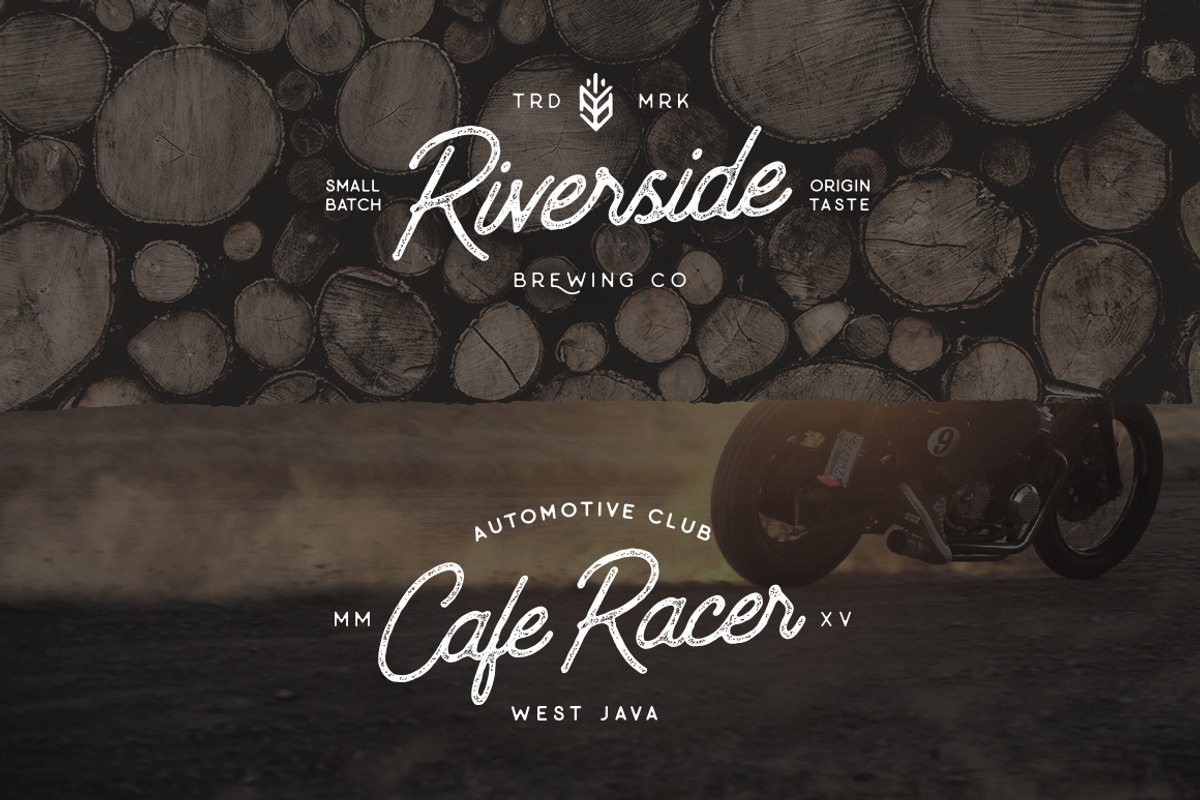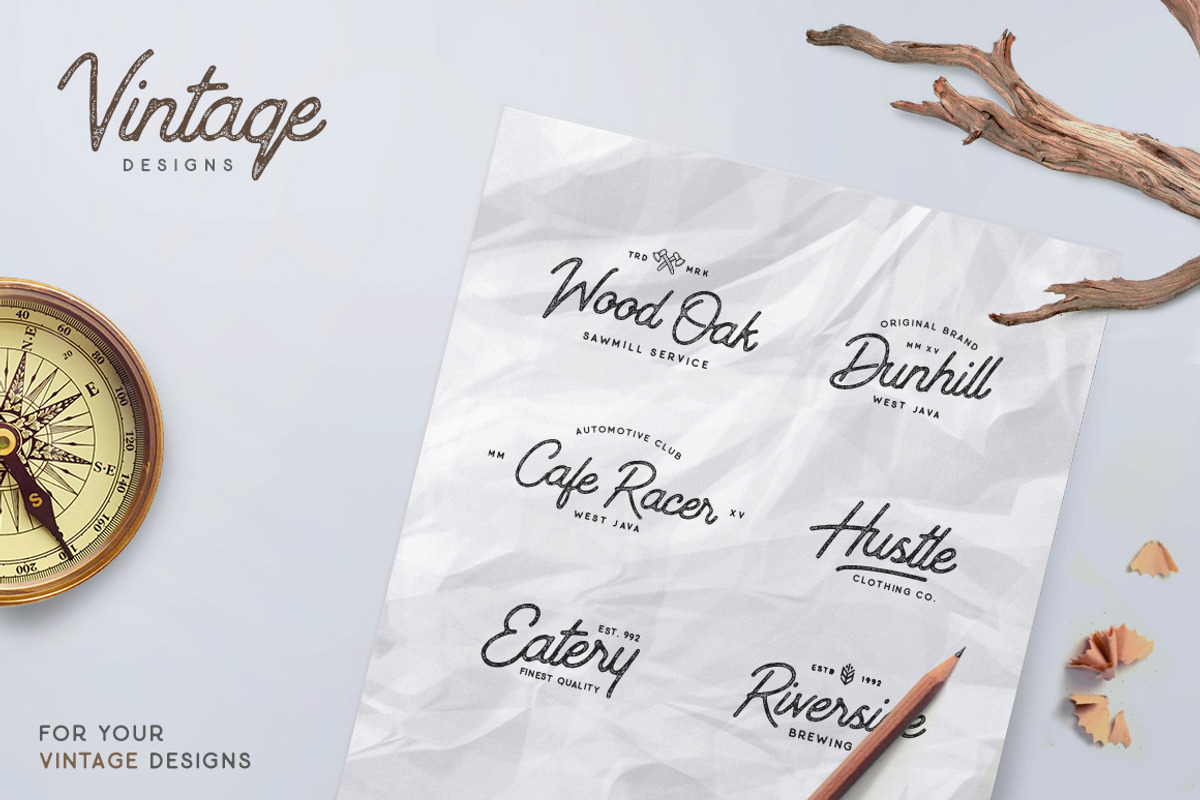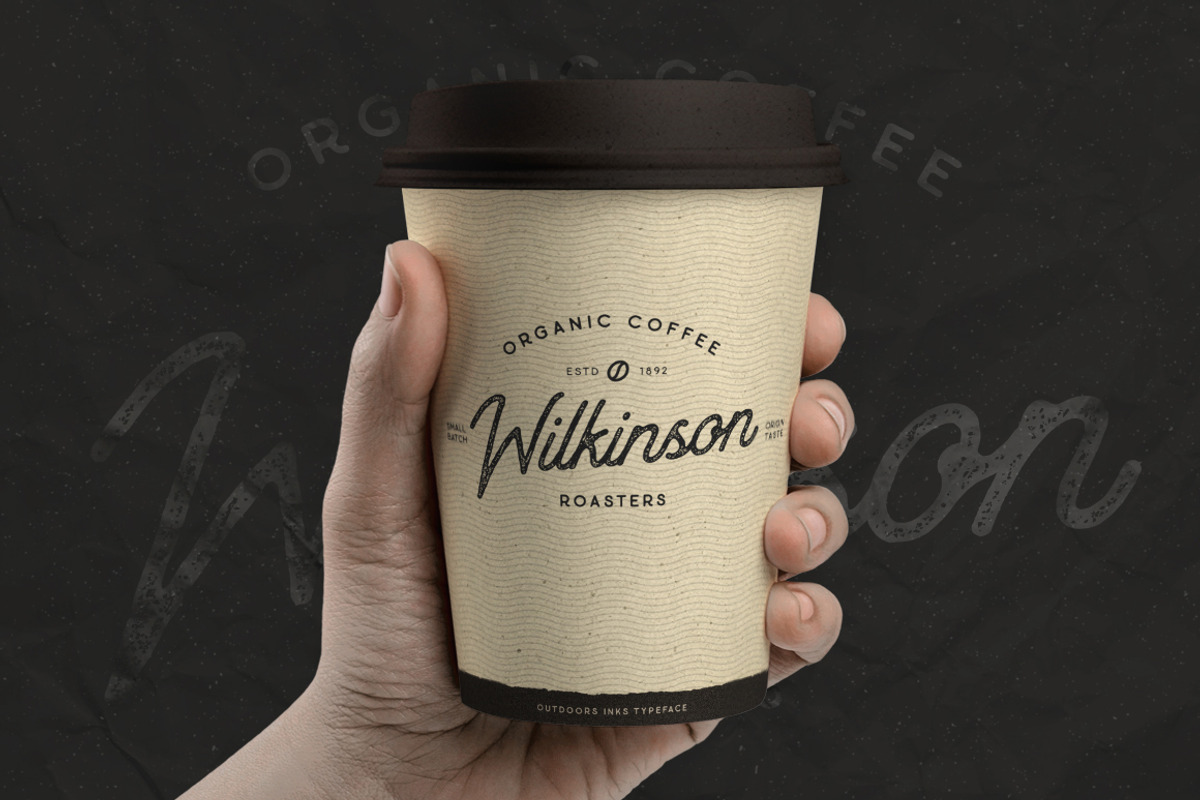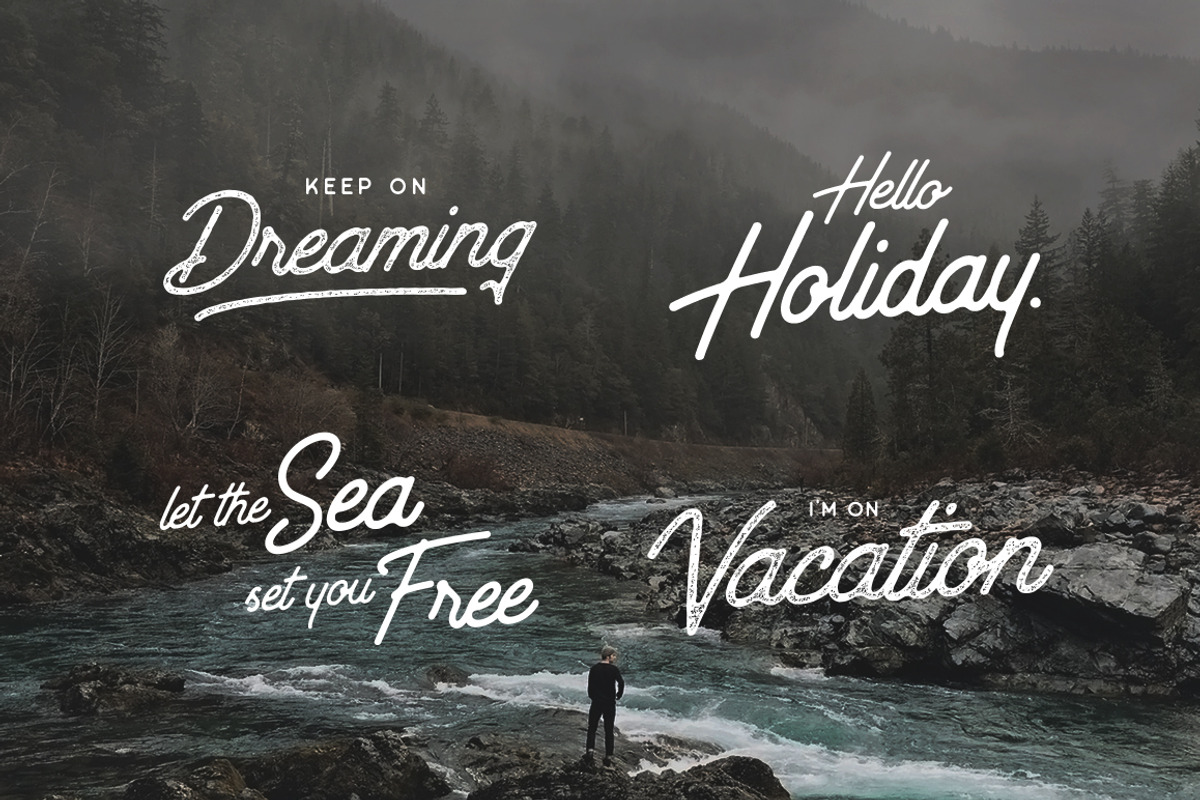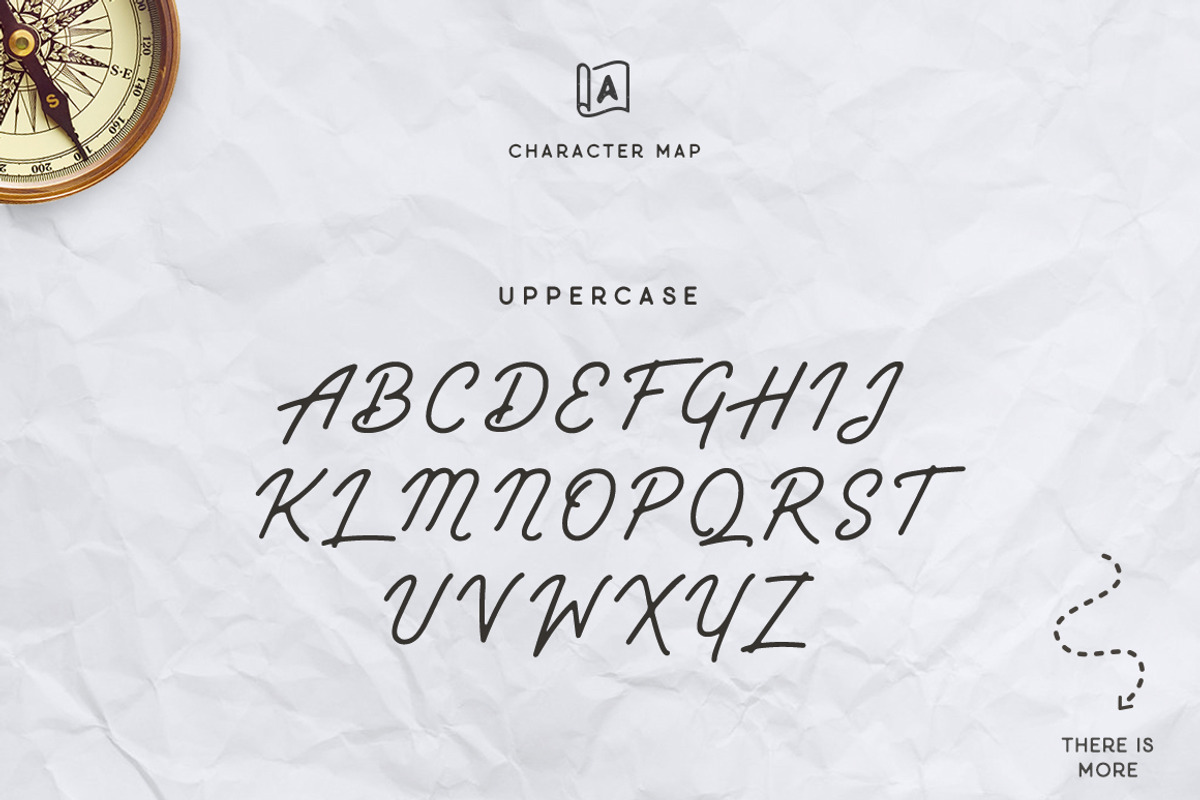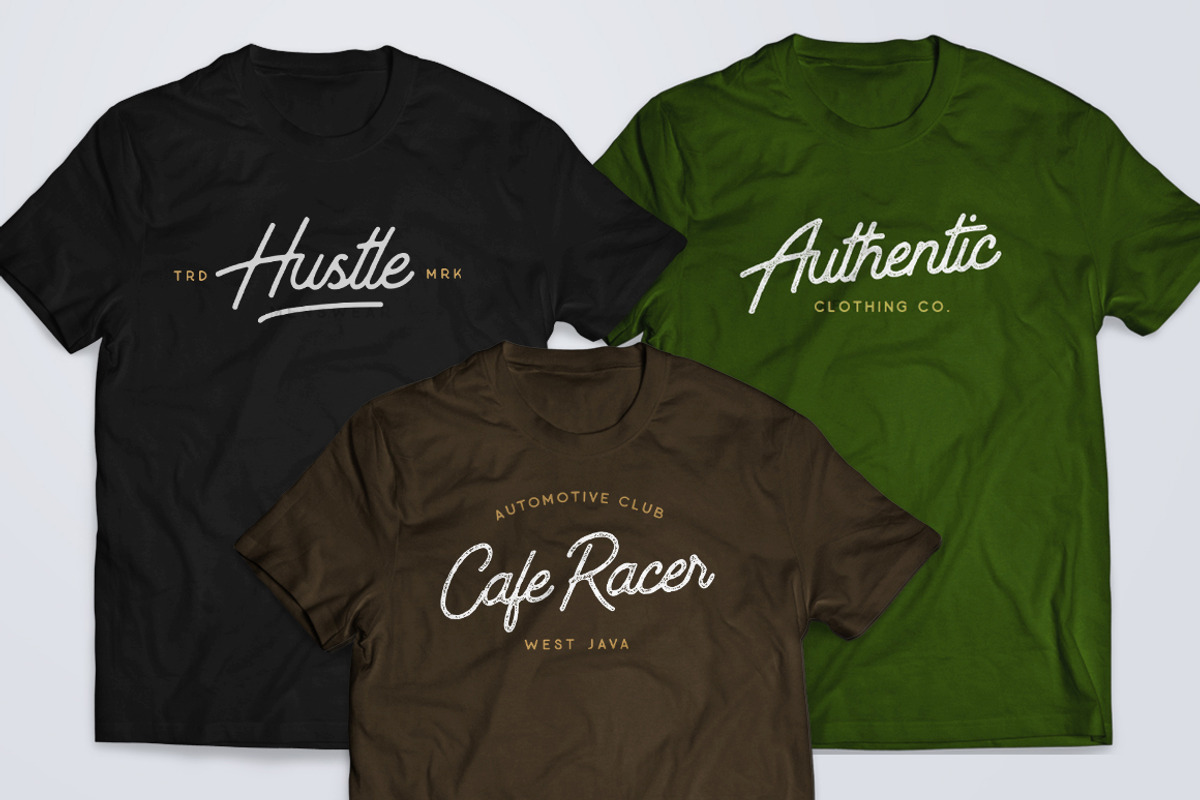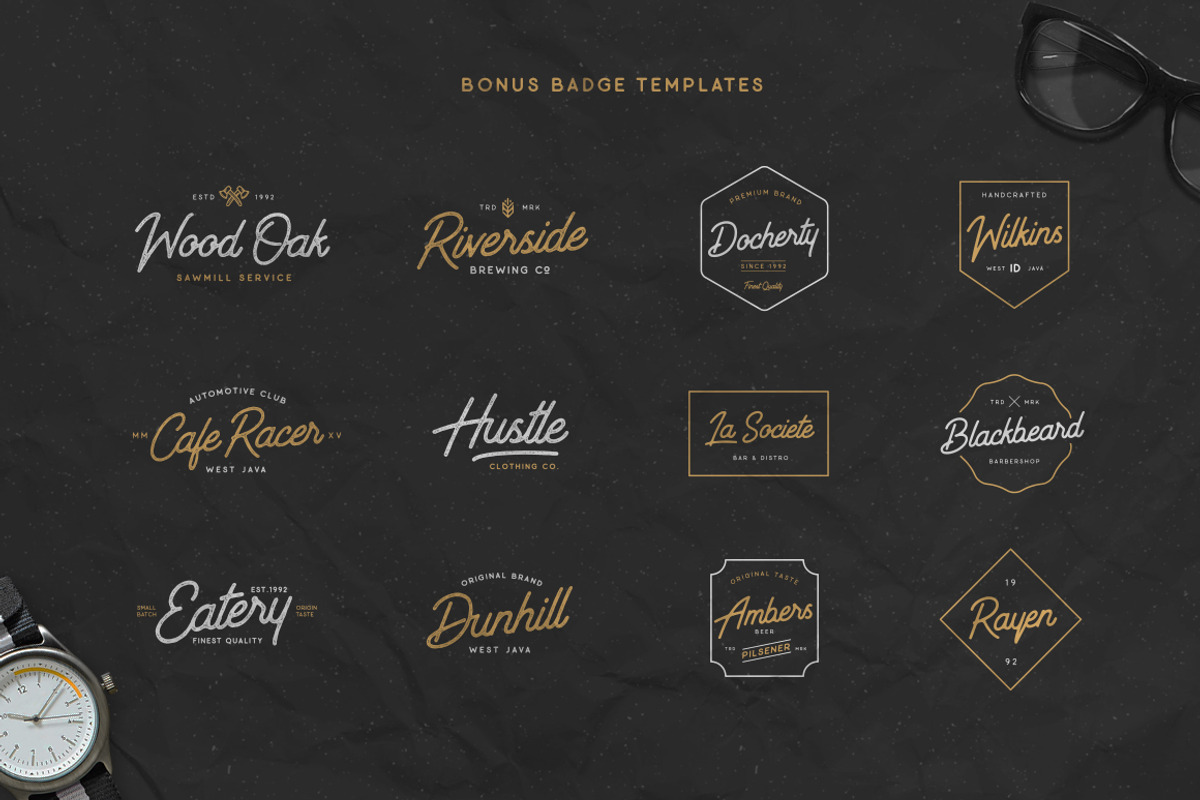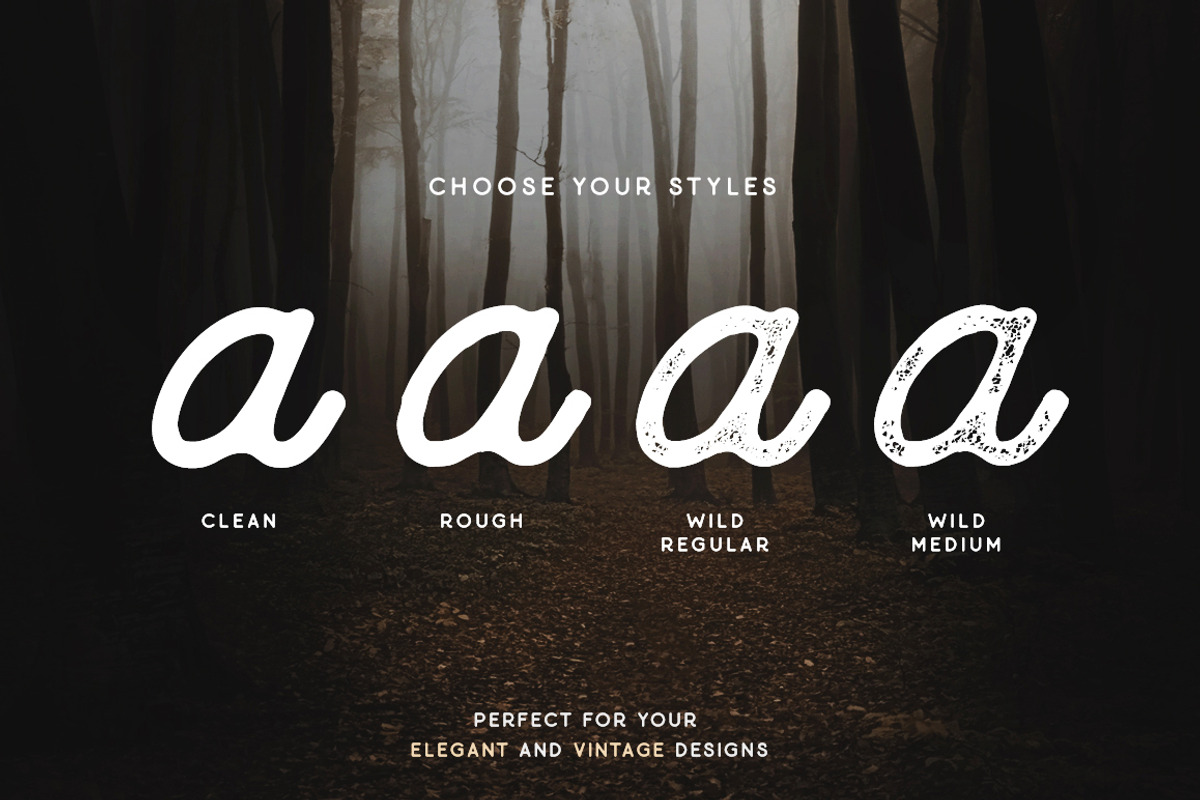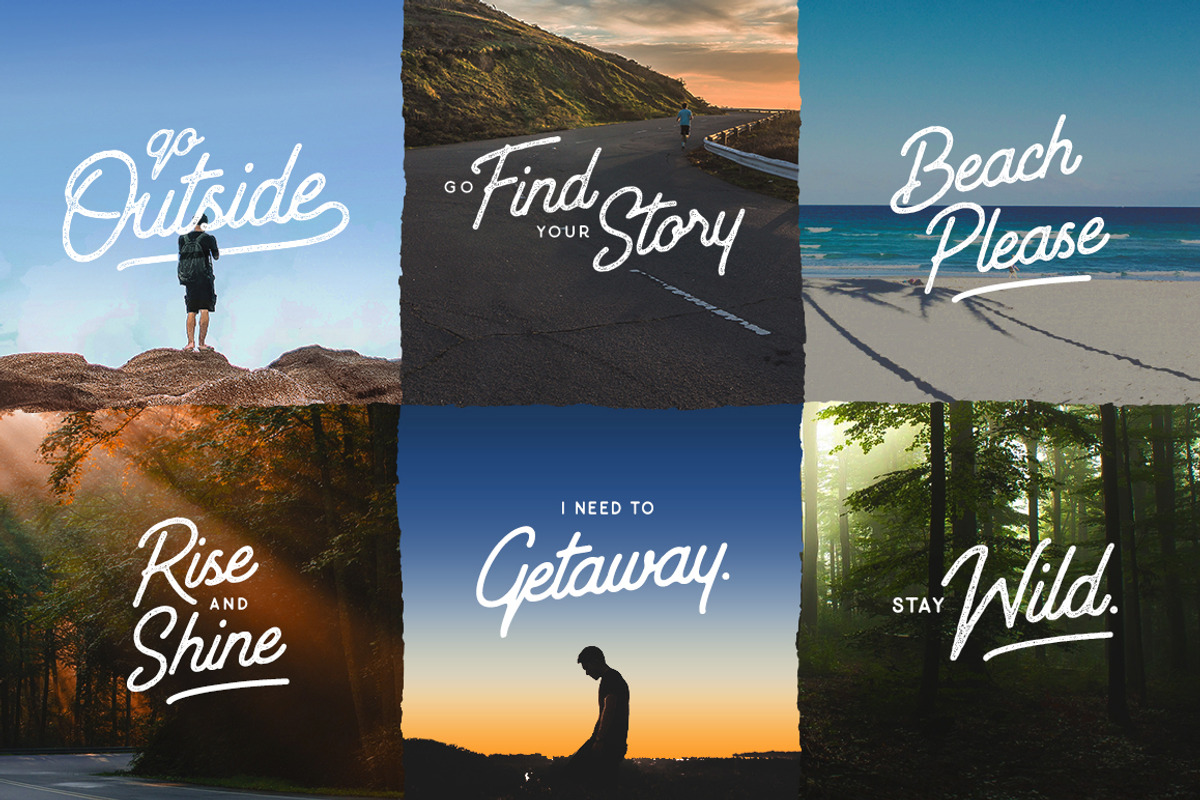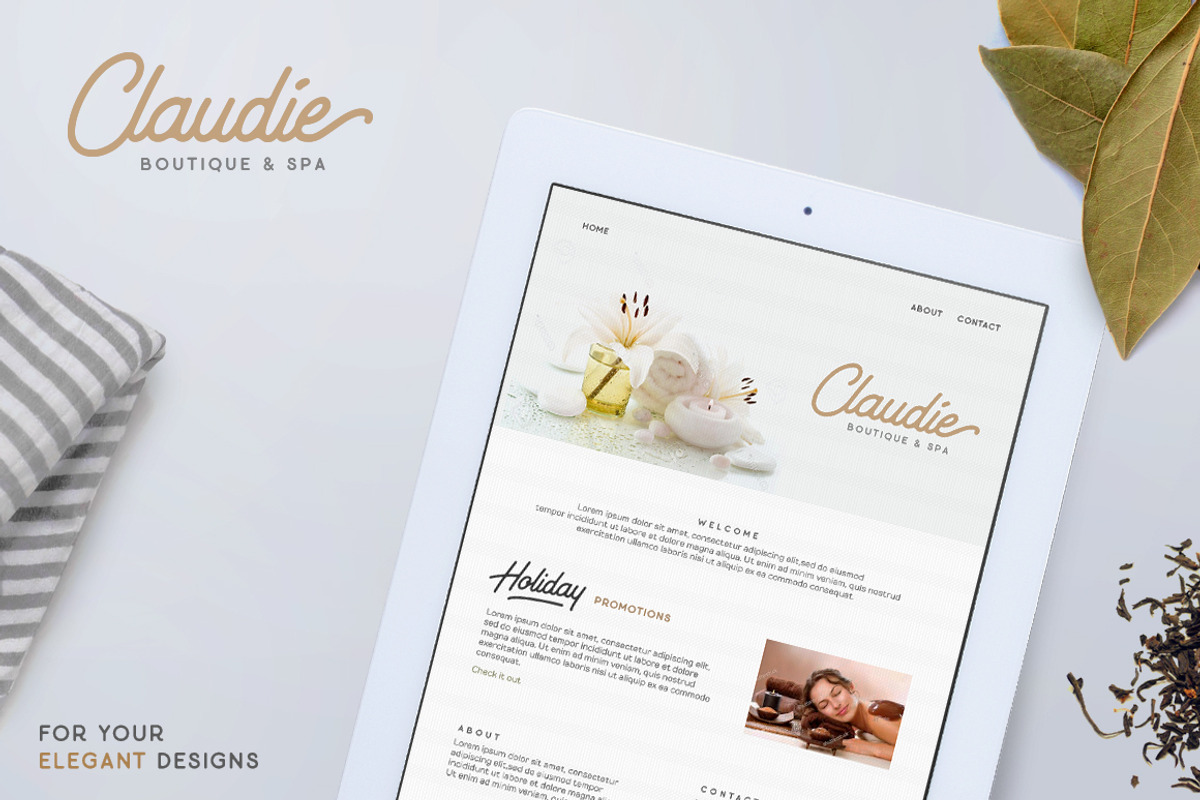
Outdoors Inks Typeface
Outdoors Inks Typeface with 4 Styles and Bonus
Outdoors Inks is a script font inspired by vintage lettering. The font have smooth edges to simulate the look of an ink pen and vintage printing, so it will bring a handwriting looked like.
Come with 4 font styles:
- Outdoors Inks Clean
- Outdoors Inks Rough or if you want to get vintage styles
- Outdoors Inks Wild Regular
- Outdoors Inks Wild Medium (It has a more dirty, sharp and clearer texture than the Regular version.)
Suitable for any graphic designs such as branding materials, t-shirt, print, business cards, logo, poster, t-shirt, especially for nature photography and quotes,
- Uppercase Character
- Lowercase Character
- Stylistic Character
- Alternatives Character
- Punctuation & Symbol
- Special Character
- International Language
- Open Type Features
- Simple swash (Code: Just type the character name 'swas' and 'swash' and the swash will show up)